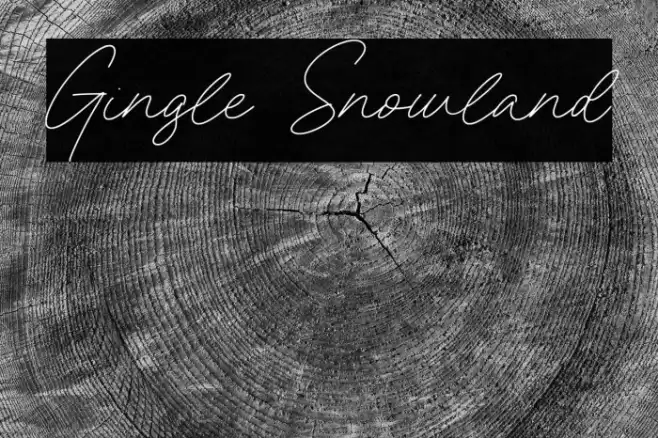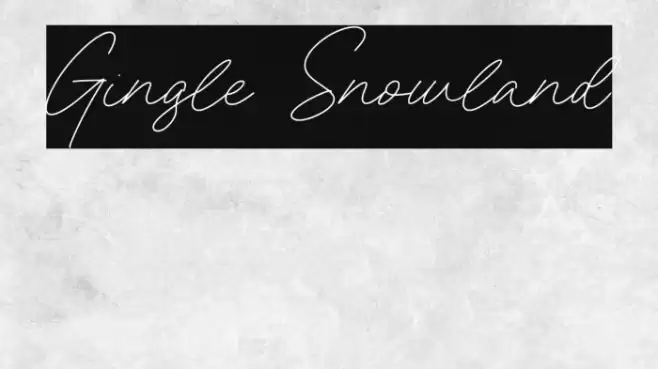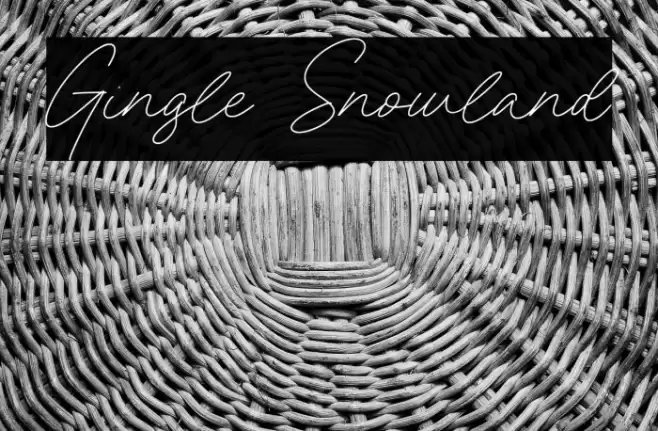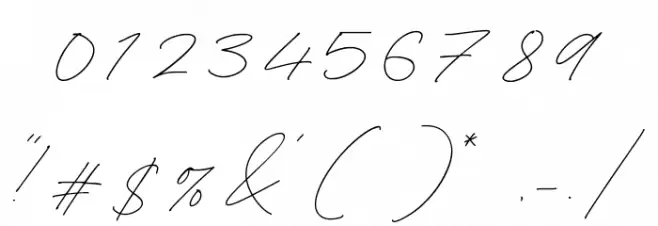
Gingle Snowland Font
Gingle Snowland Description
This font features a delicate, flowing script style that mimics elegant handwriting. The uppercase letters are elongated and slightly slanted, giving a sense of movement and grace. The lowercase letters maintain a consistent flow, with smooth curves and subtle connections between characters. Numbers and special characters are designed to complement the overall aesthetic, maintaining the same fluidity and elegance. The thin strokes and gentle curves make it suitable for projects that require a touch of sophistication and personal flair.
A graceful, handwritten script font with elegant, flowing strokes from Uncategorized fonts.
- Proposed Projects: Ideal for wedding invitations, personal branding, greeting cards, and elegant packaging designs.
- Overall Style: Elegant, Handwritten
- Use Case: Logos, Invitations, Personal Branding